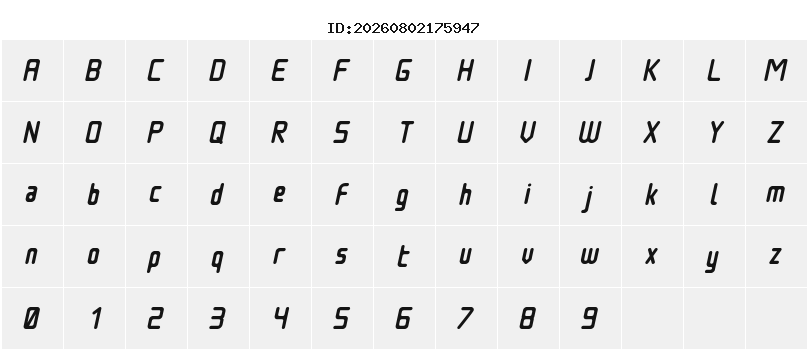
Nowadays Preview
• Font Name: Nowadays
• Font Style: Italique
• Full Font Name: Nowadays Italic
About Nowadays.ttf
Nowadays.ttf is a modern, elegant sans-serif font designed for ultimate readability and visual harmony. Perfect for branding, headlines, web design, and print materials.